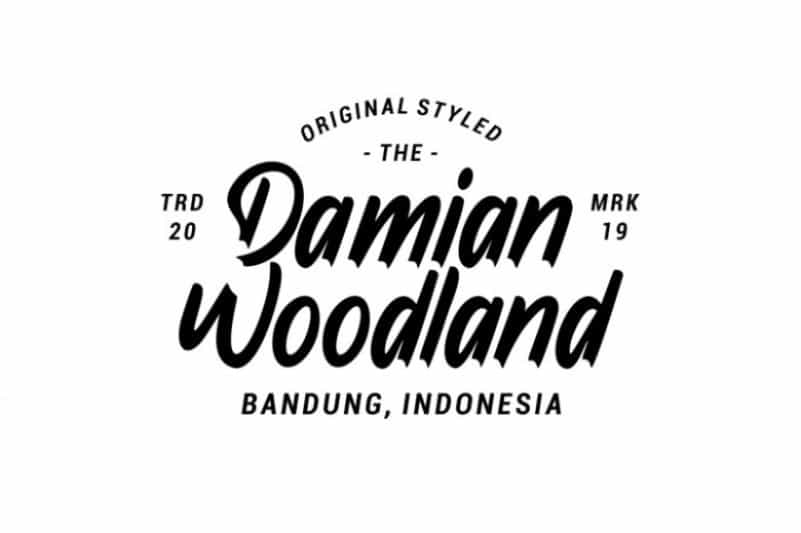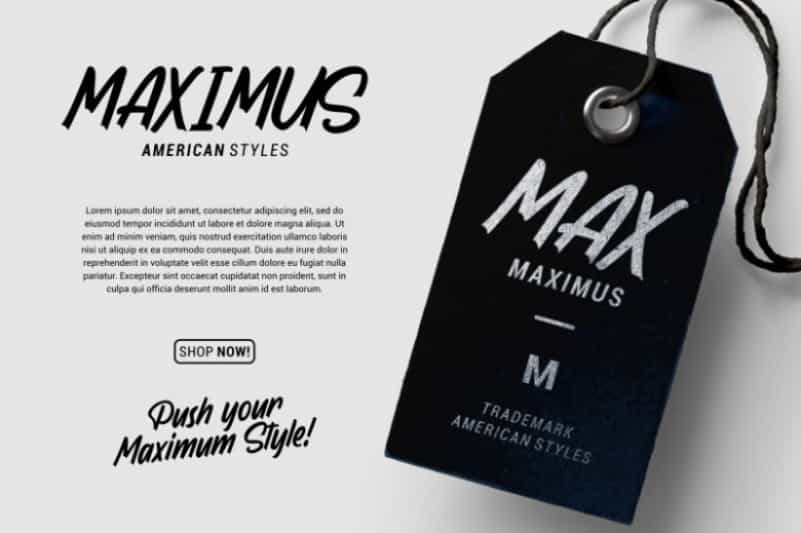
Wardness is a simple, casual handwritten font with beautiful details. It is very cute and has so many ligatures that it is difficult to count them. It is ideal for branding, wedding invitation, invitation cards and so on.